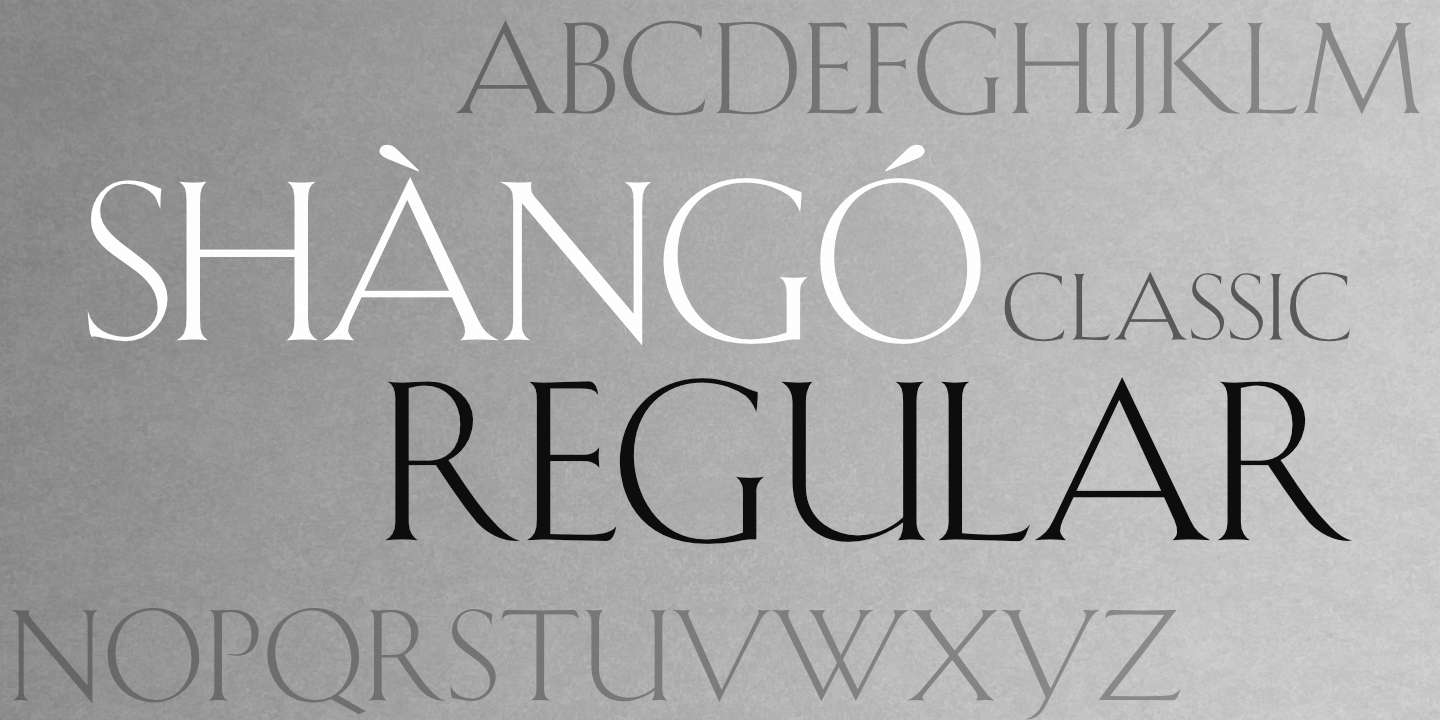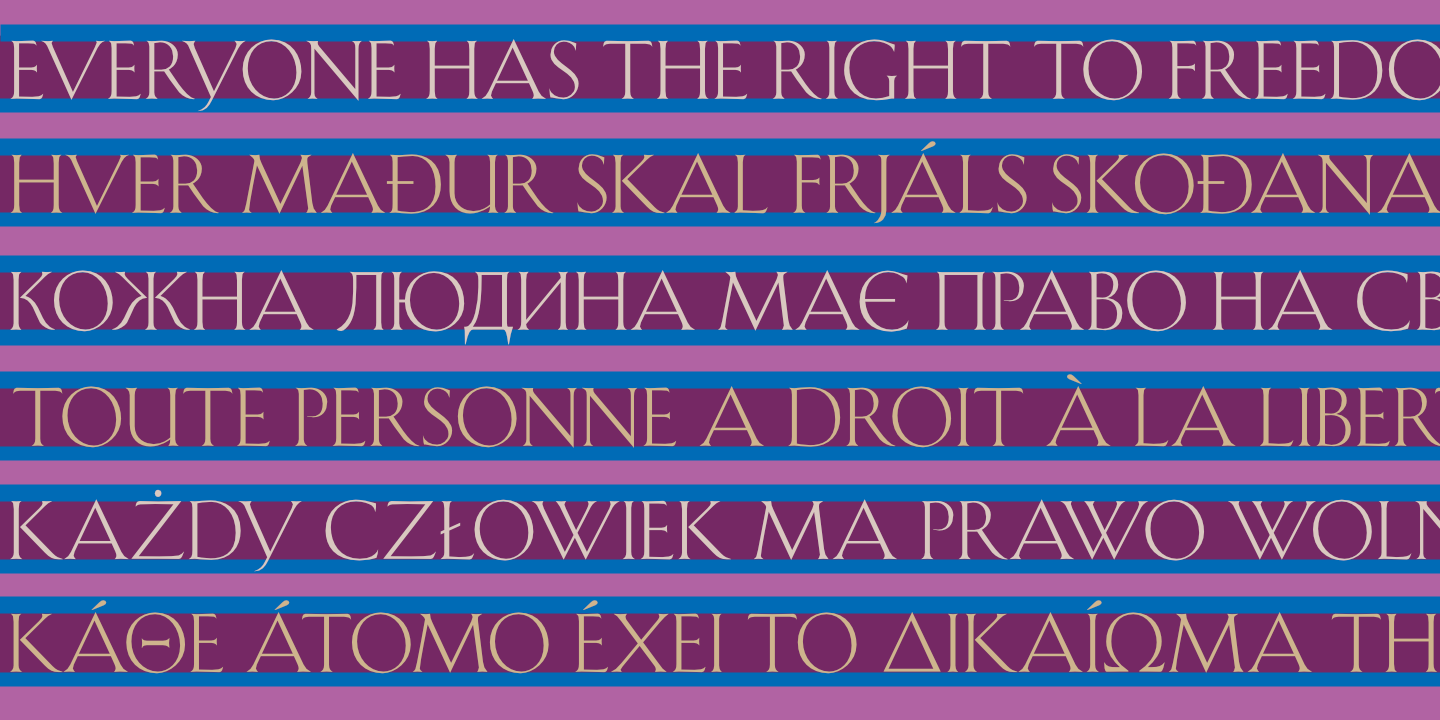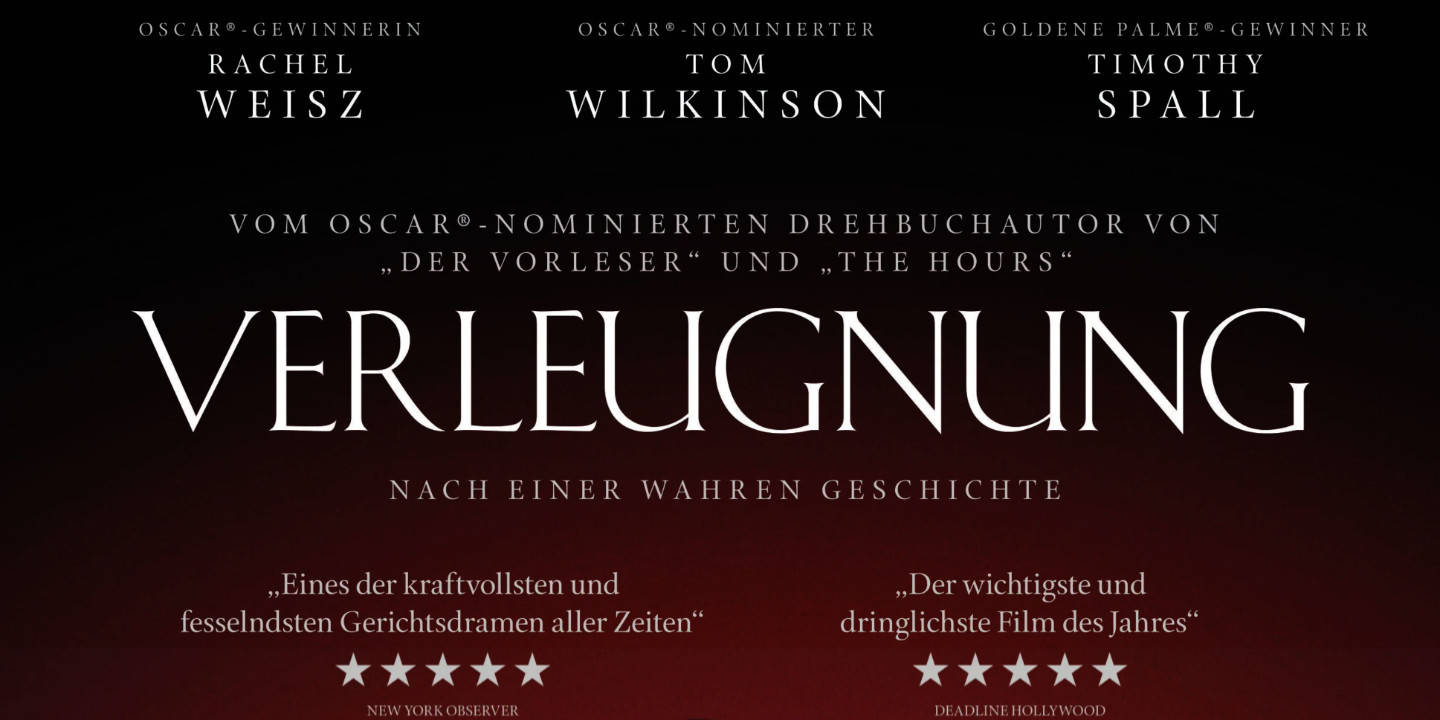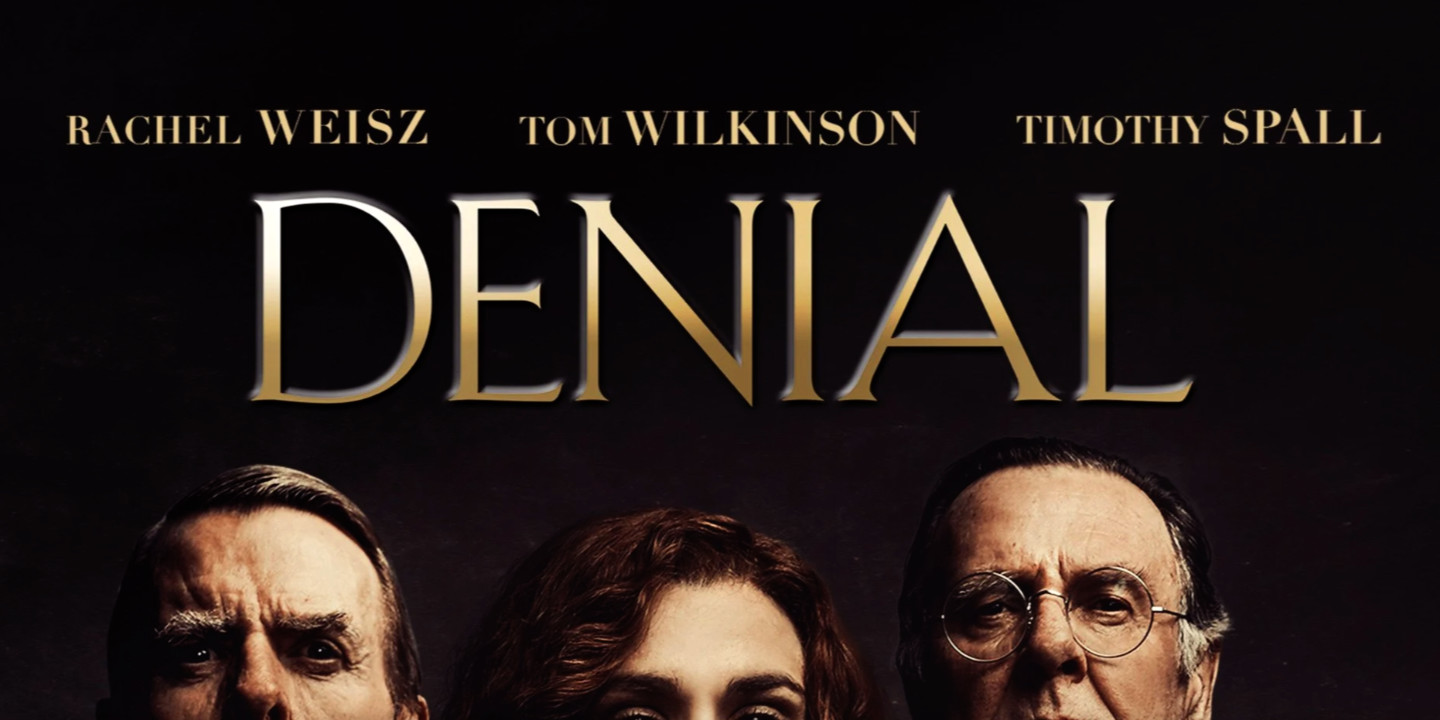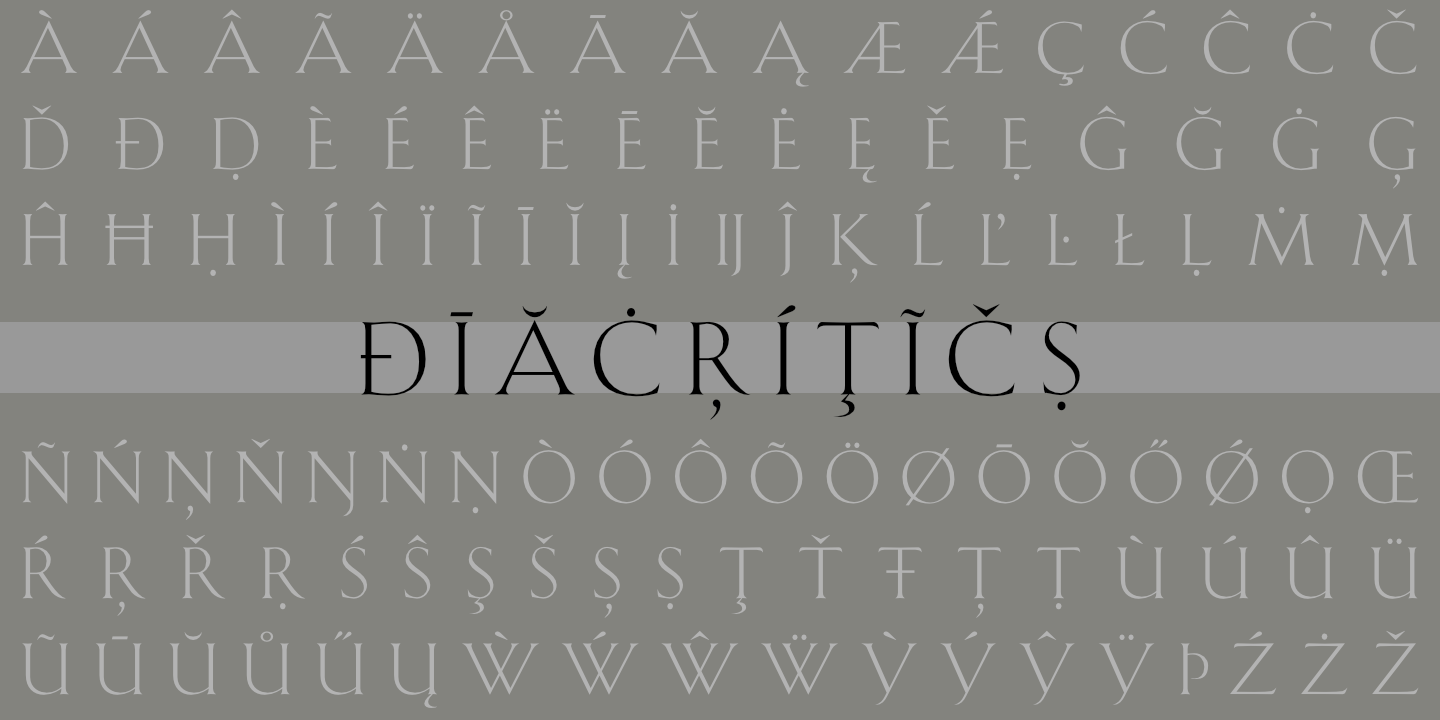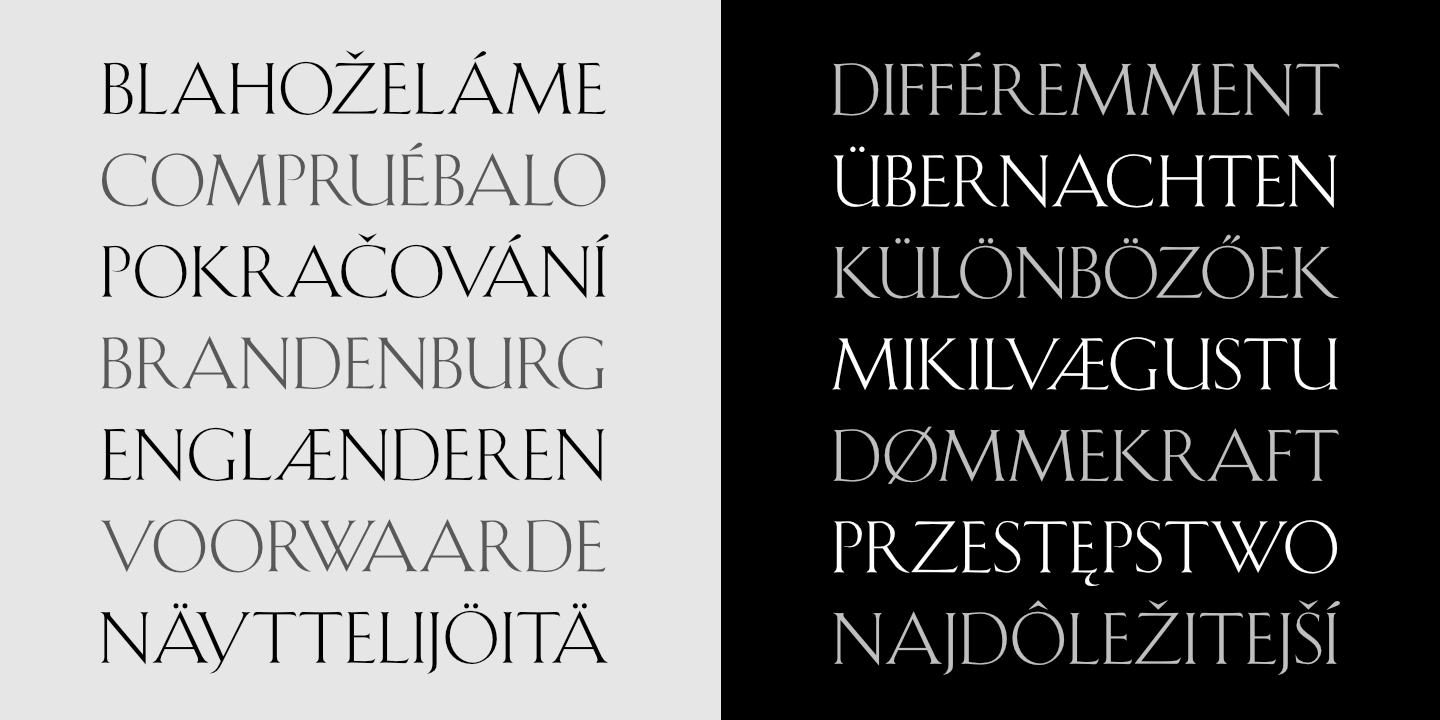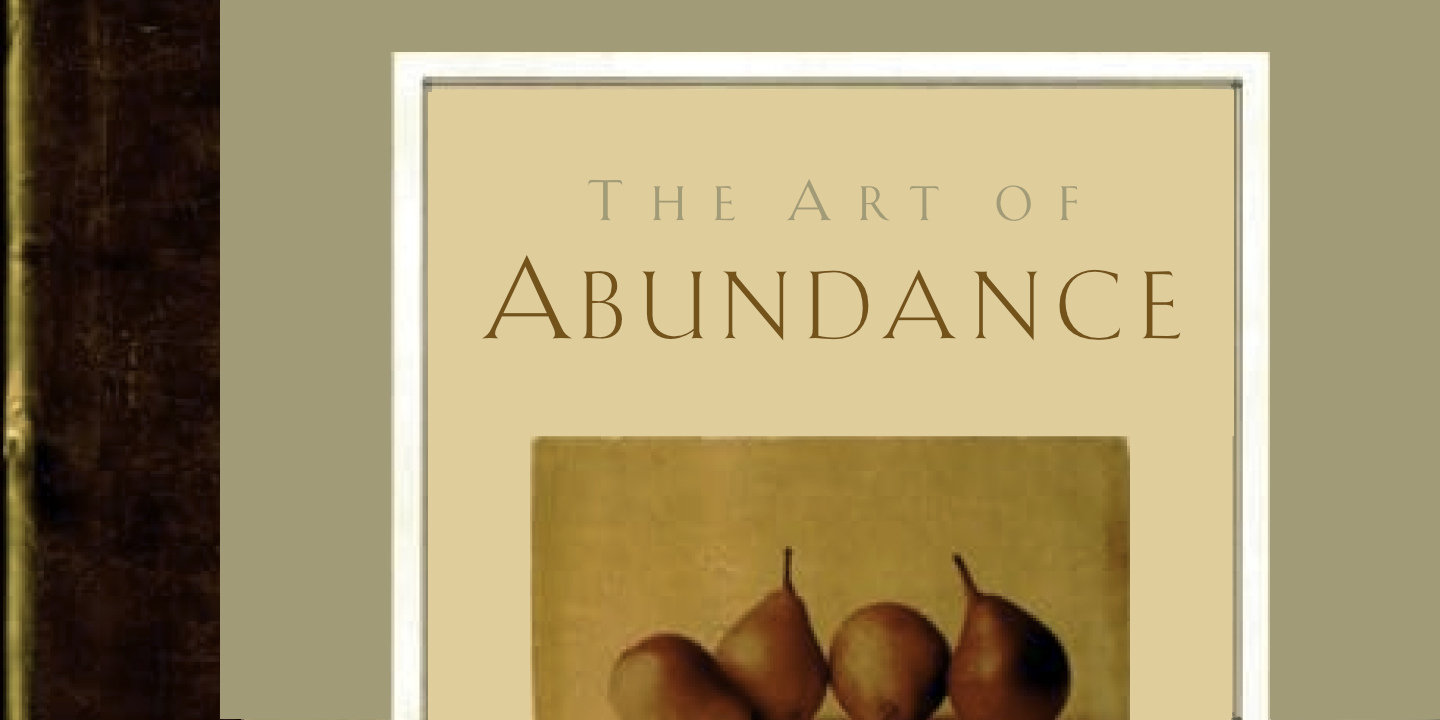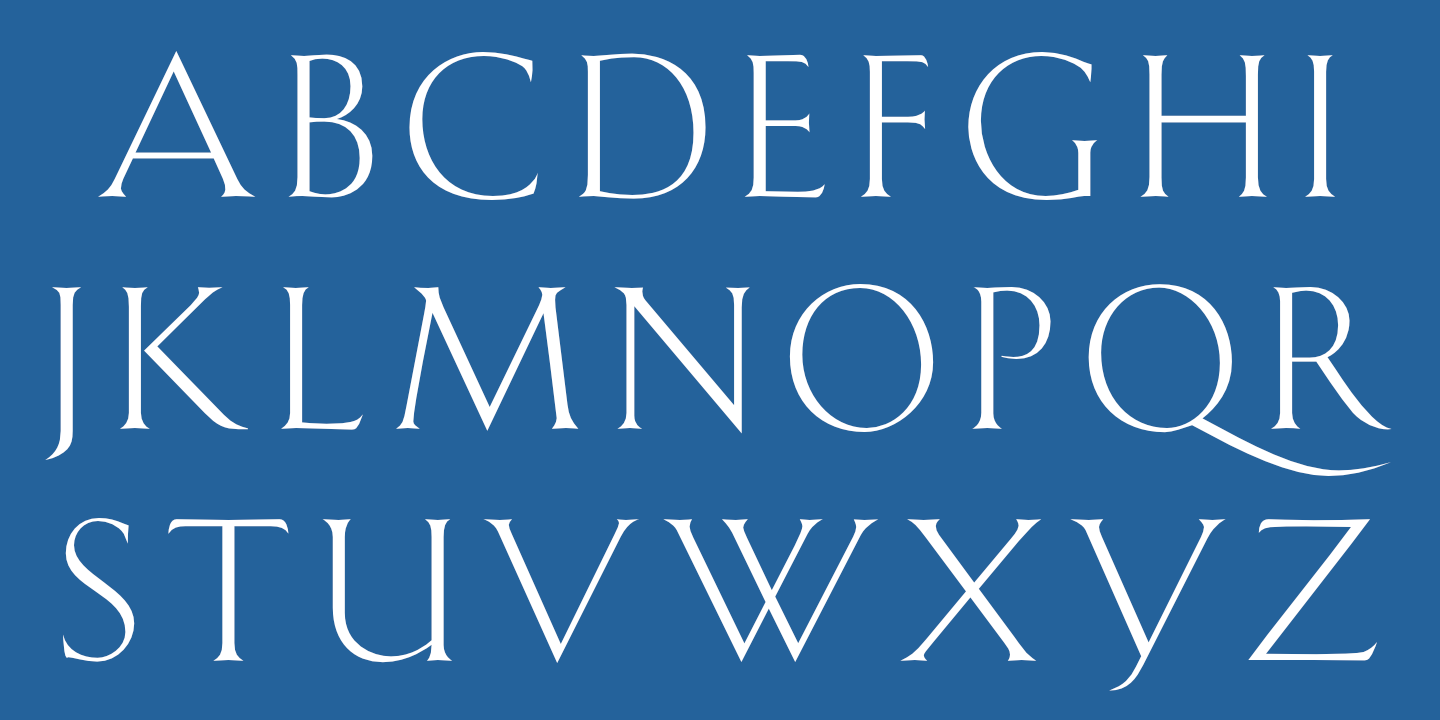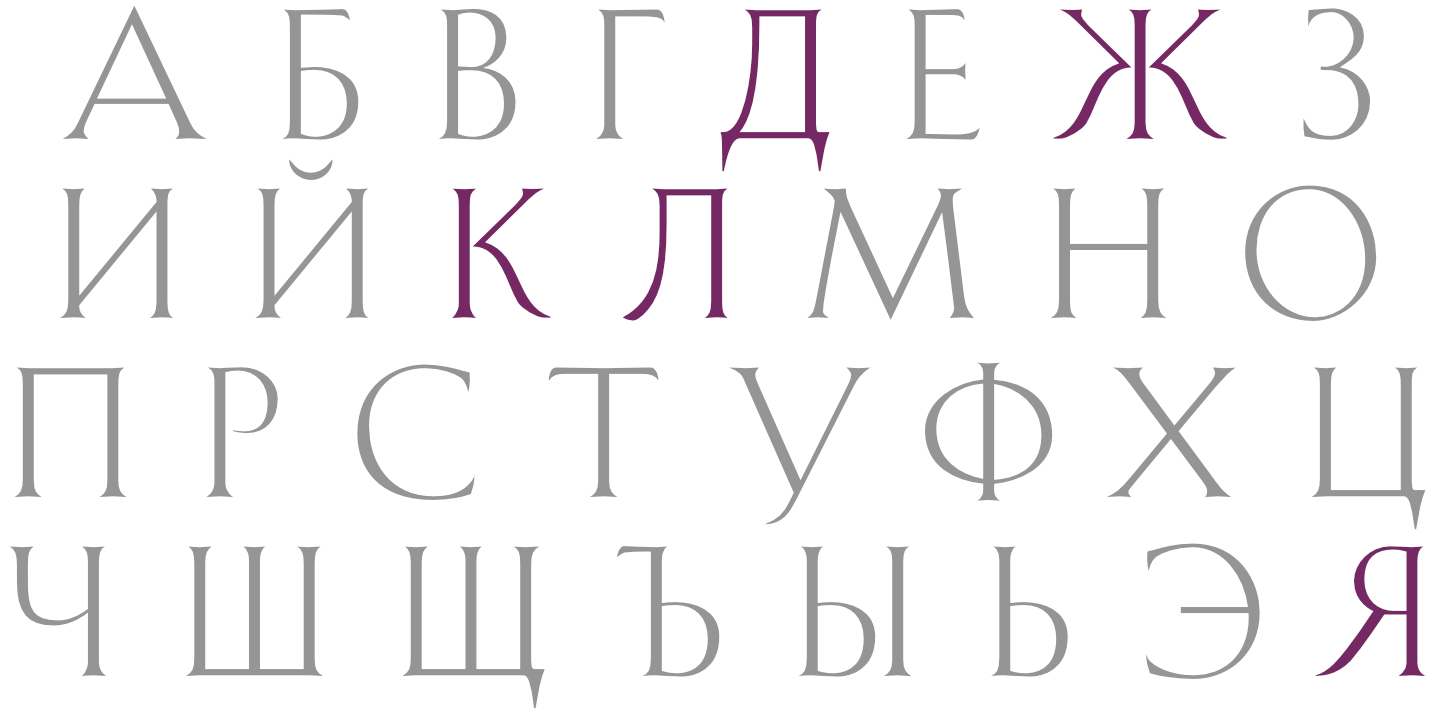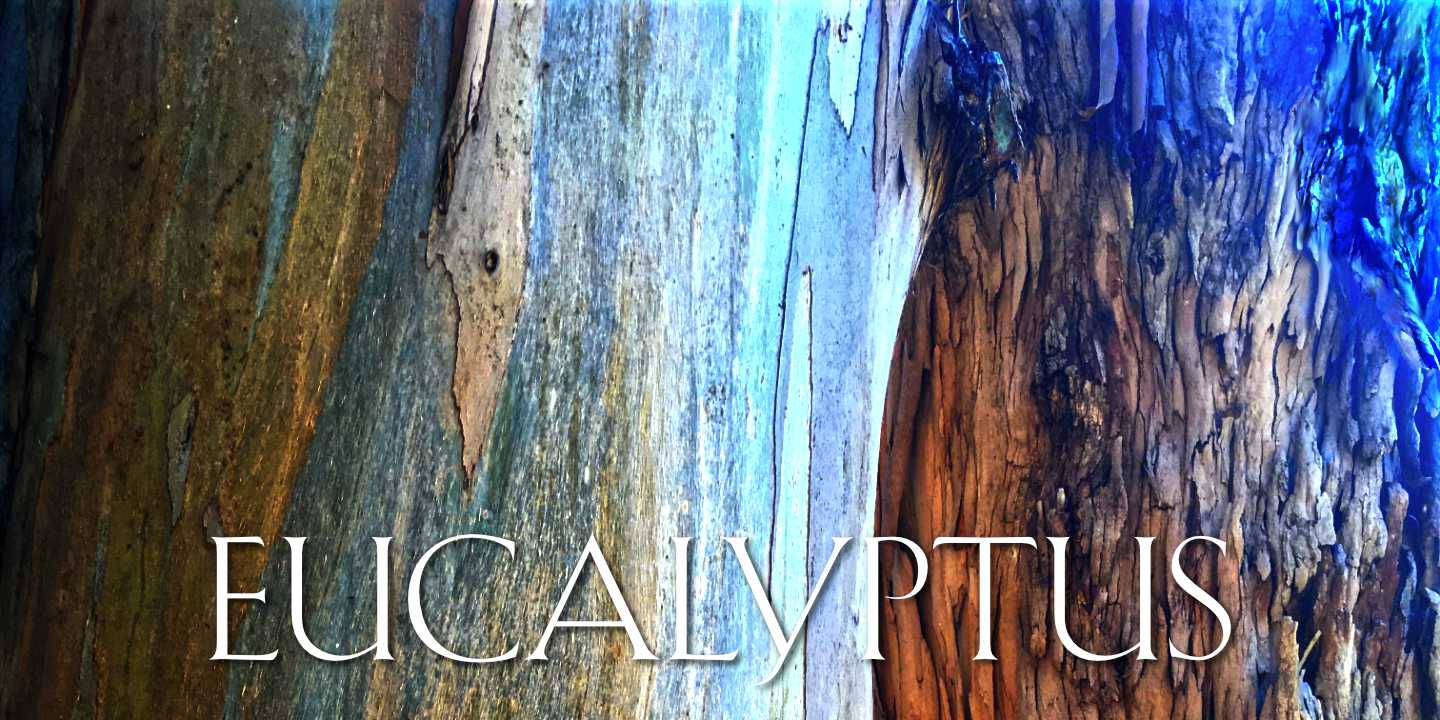
Shàngó Classic Regular: Basic Latin alphabet. See Glyphs for details.
Shàngó Classic Regular: Sample of some of the swashes and alternates. Default caps in red.  See Glyphs for details.
Shàngó Classic Regular: Cyrillic swash caps and other alternates. See Glyphs for details.
Shàngó Classic Regular supports modern Greek (above). Some alternates shown below. See Glyphs for details.
Shàngó Classic Regular: Numerals, basic punctuation, currency symbols, and a sampling of ornaments.
Shàngó Classic Regular supports most European languages.
Shàngó Classic Regular on an album cover. Art Director: Bob Hurwitz. Designer: Carin Goldberg.
Shàngó Classic Regular as used on the cover of The Art of Abundance by Candy Paull.
Shàngó Classic Regular as used in Aramco World magazine.
Shàngó Classic Regular on a movie poster in English (above) and German (below). The extra wide 'A' is a give-away.